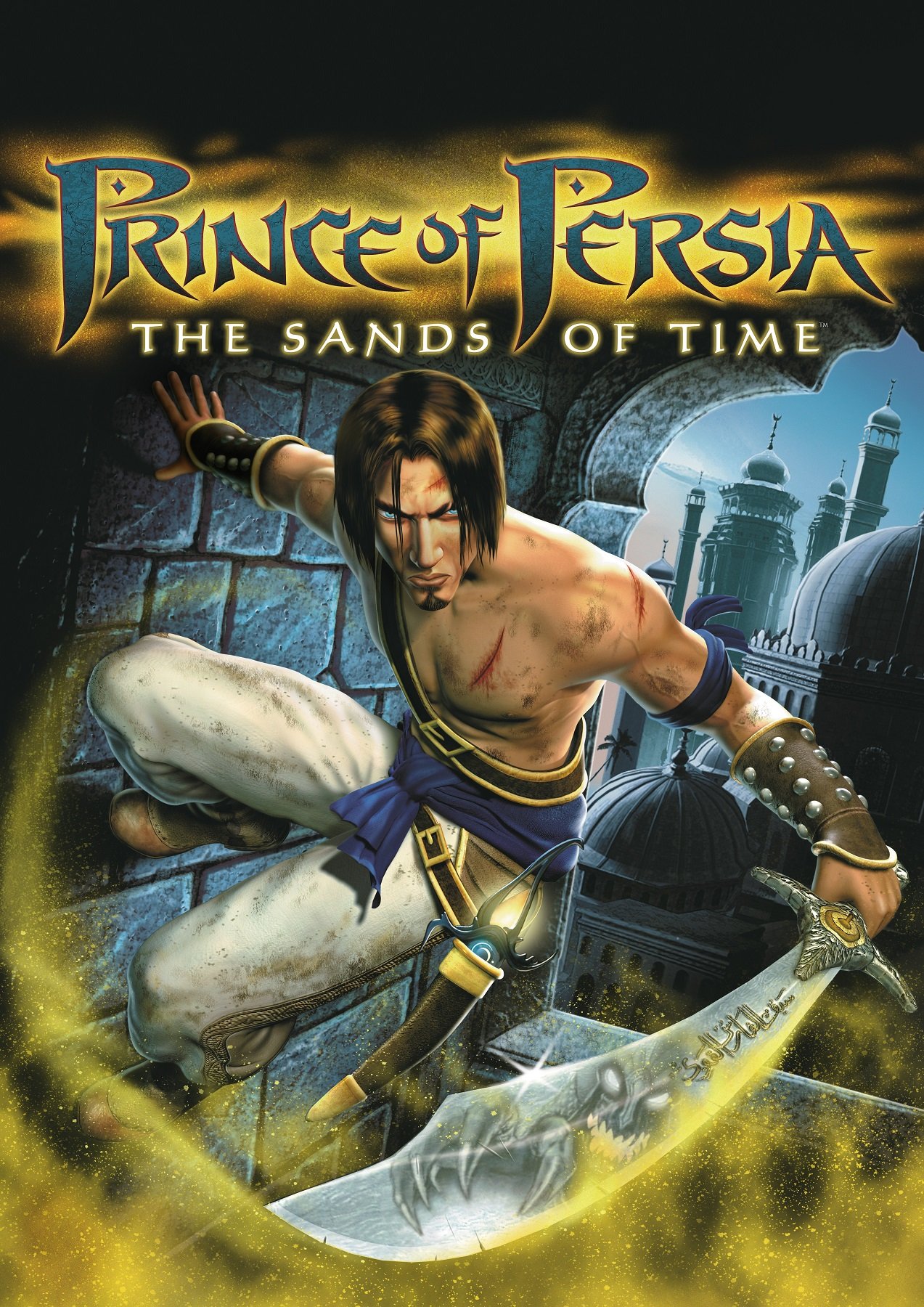
Prince of Persia Font
Action & AdventurePrince of Persia is a video game franchise created by Jordan Mechner, best known for its acrobatic platforming, sword combat, and adventure themes. The original Prince of Persia DOS helped introduce the series’ classic style before later games like The Sands of Time shaped its modern look.
The logotype is similar to a font created by Fereydoun named Prince of Persia. In addition to basic letters, the font is available in seven Prince of Persia game-related symbols. For example, type “Alt+0161” and you get the Astrolabe symbol, other five are Kaileena’s symbol via “Alt+0164”, Babylon’s symbol via “Alt+0162”, Dagger symbol via “Alt+0134”, Hourglass symbol via “Alt+0240”, Amulet symbol via “Alt+0160” and Prince symbol via “Alt+0137”.